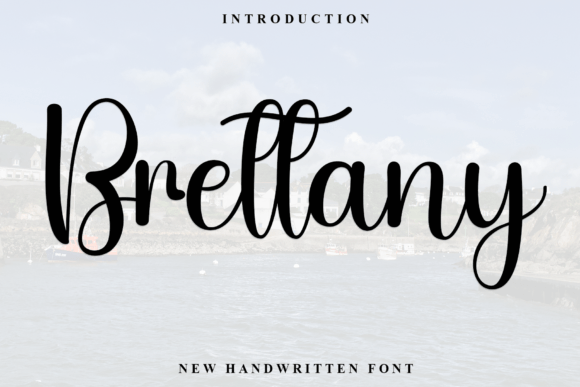
The Elusive Font: A Designer’s Journey with Brettany
I still remember the countless hours I spent searching for the perfect font for a client’s wedding invitation project. The design brief was simple: elegant, modern, and sophisticated. Sounds easy, right? But, as designers know, finding that one font that ticks all the boxes can be like looking for a needle in a haystack. That’s when I stumbled upon Brettany, a beautiful and refined handwritten font that has since become a staple in my design toolkit.
An Honest Review: What I Love and What I Don’t
• ✅ Elegant and modern look that’s perfect for logos, branding, invitations, and more
• ✅ Versatile and can be used for various design projects, from social media posts to wedding designs
• ✅ Classy and sophisticated feel that’s sure to impress clients
• ⚠️ Limited availability of certain characters, which can be a bit frustrating
• ⚠️ May require some experimentation to get the perfect look, especially for beginners
Exploring Alternatives: Similar Fonts to Brettany
The Story Behind Brettany: Designer Inspiration
Brettany was designed with the intention of creating a beautiful and refined handwritten font that would cater to the needs of designers and crafters. The font’s creator aimed to craft a font that would exude elegance, sophistication, and modernity, making it perfect for a wide range of design projects.
Q: Is Brettany suitable for beginners?
A: While Brettany is a relatively easy-to-use font, it may require some experimentation to get the perfect look, especially for beginners.